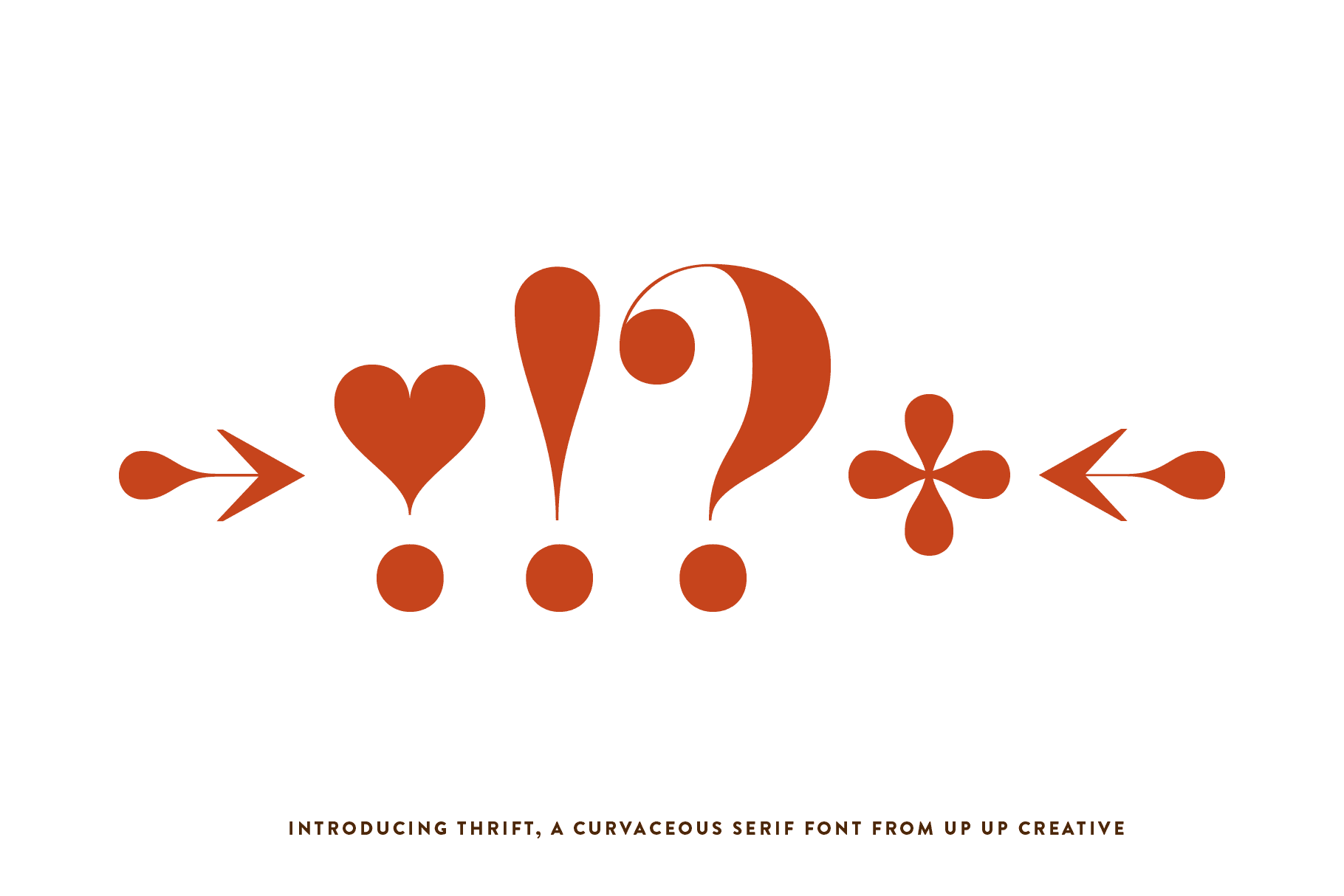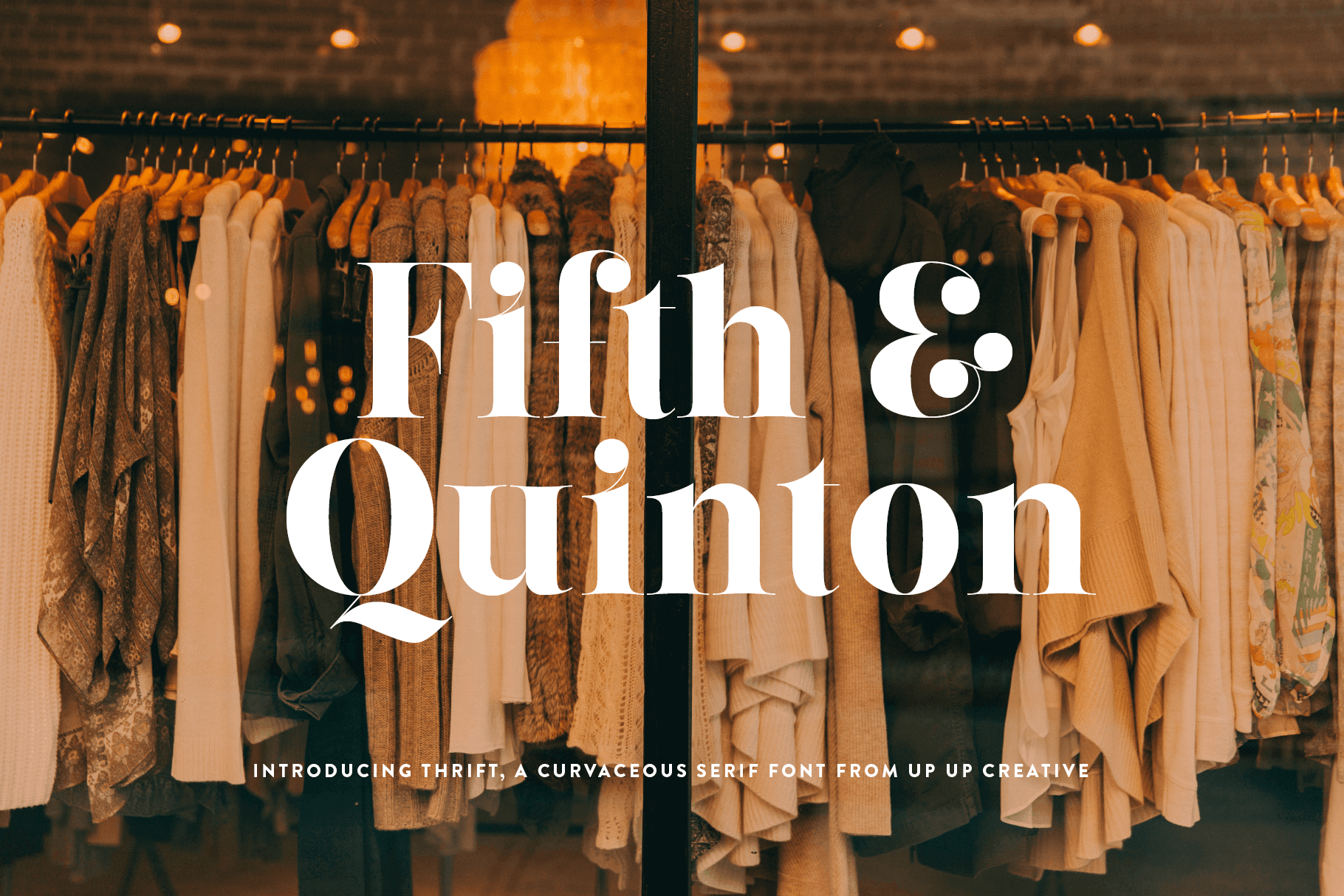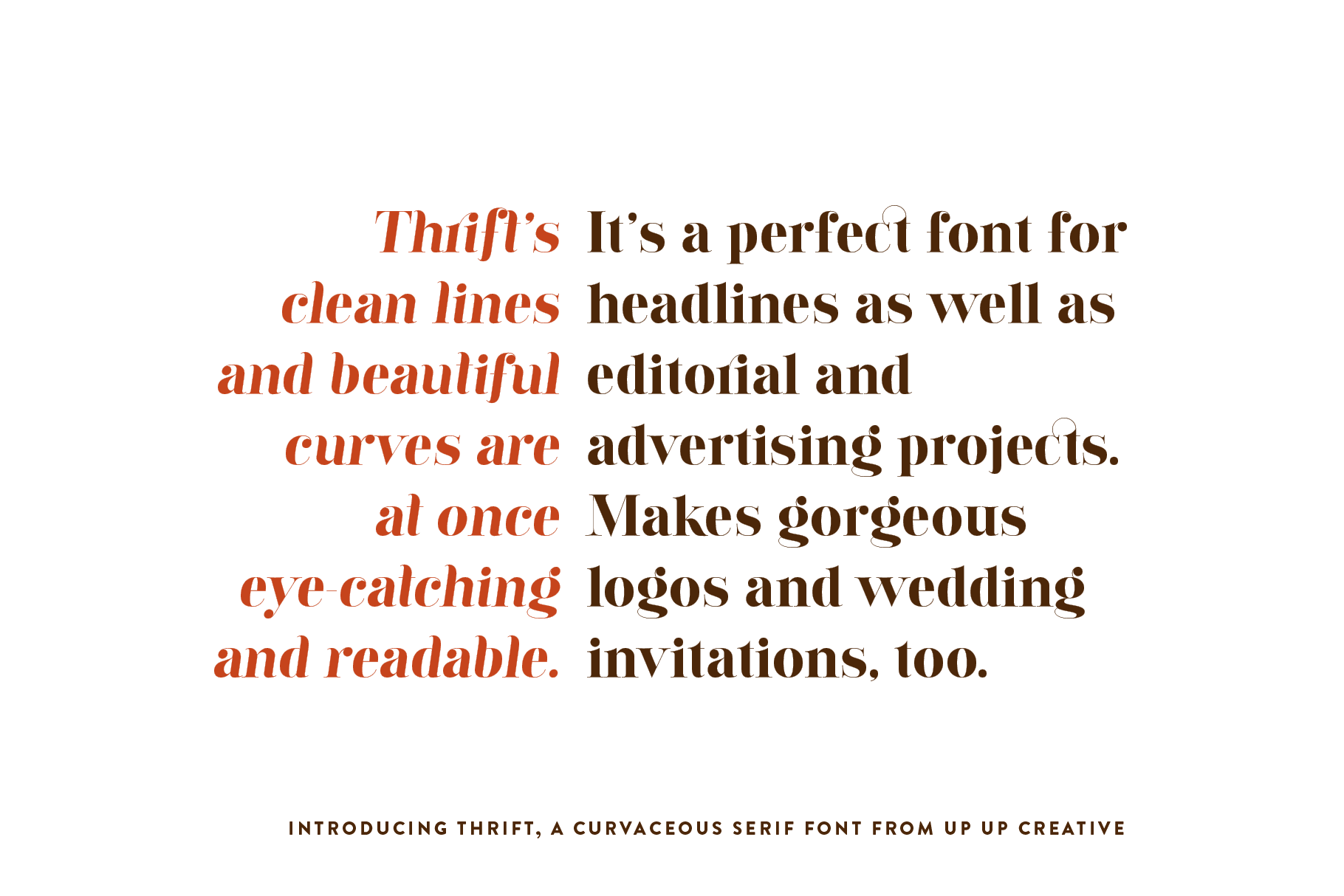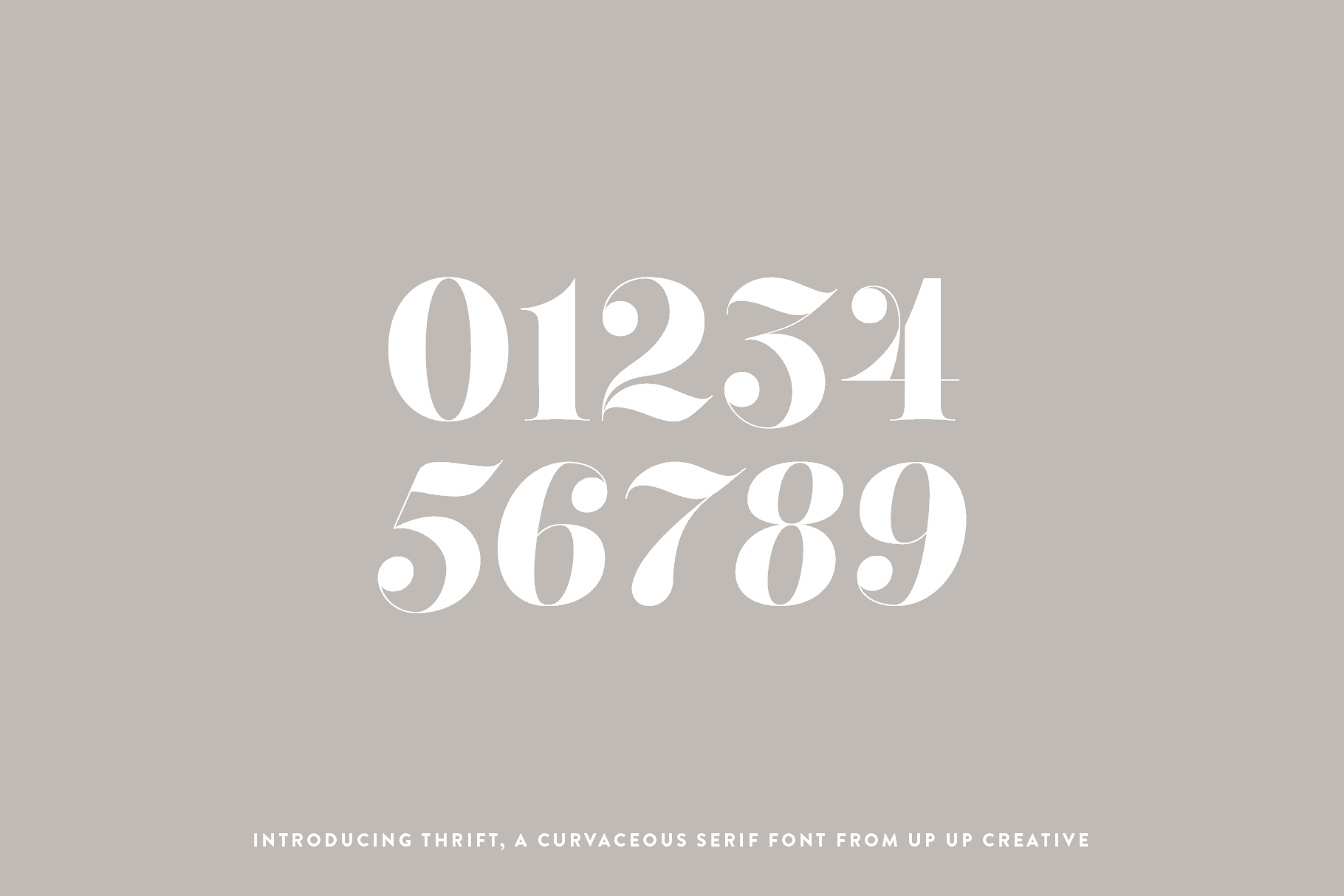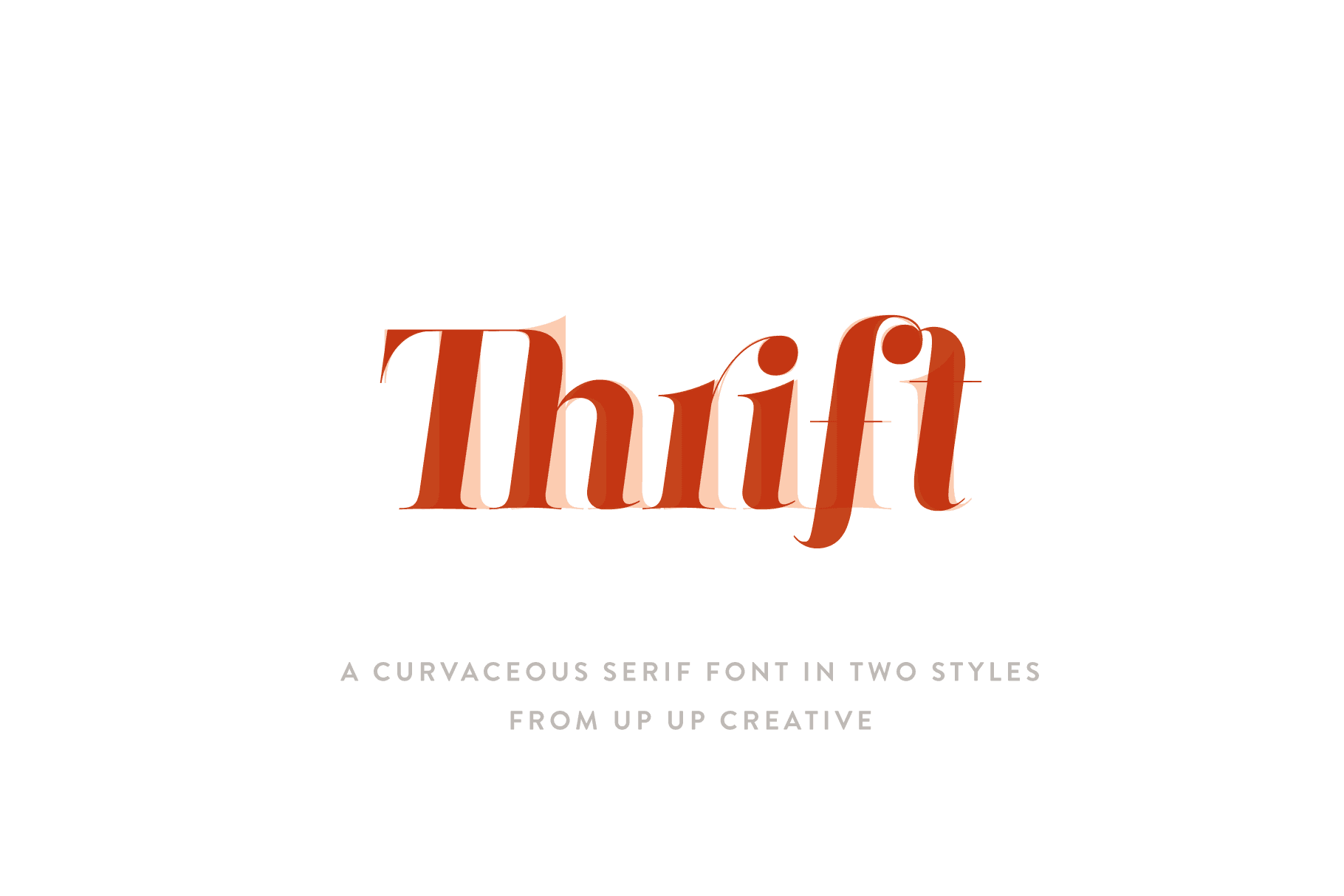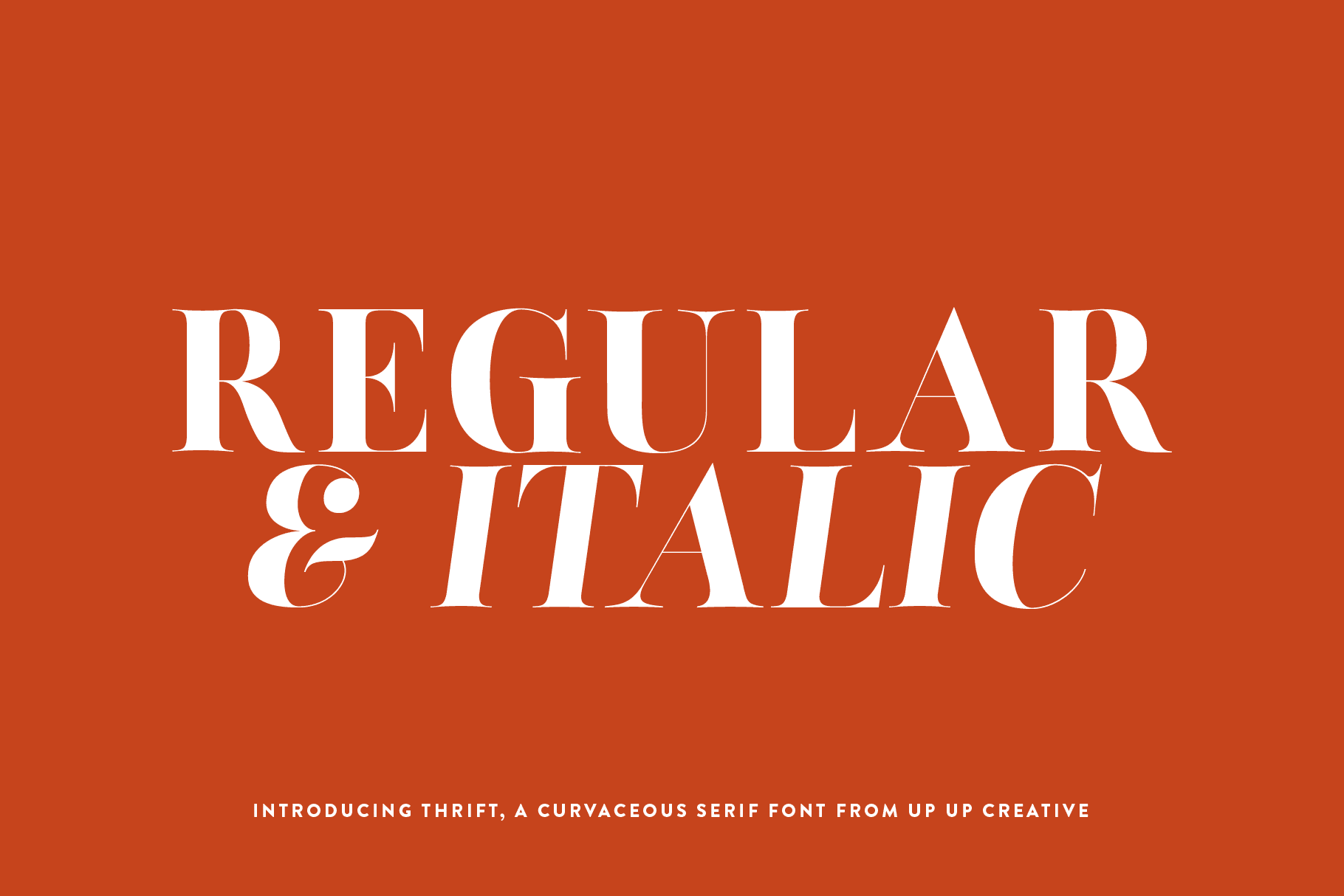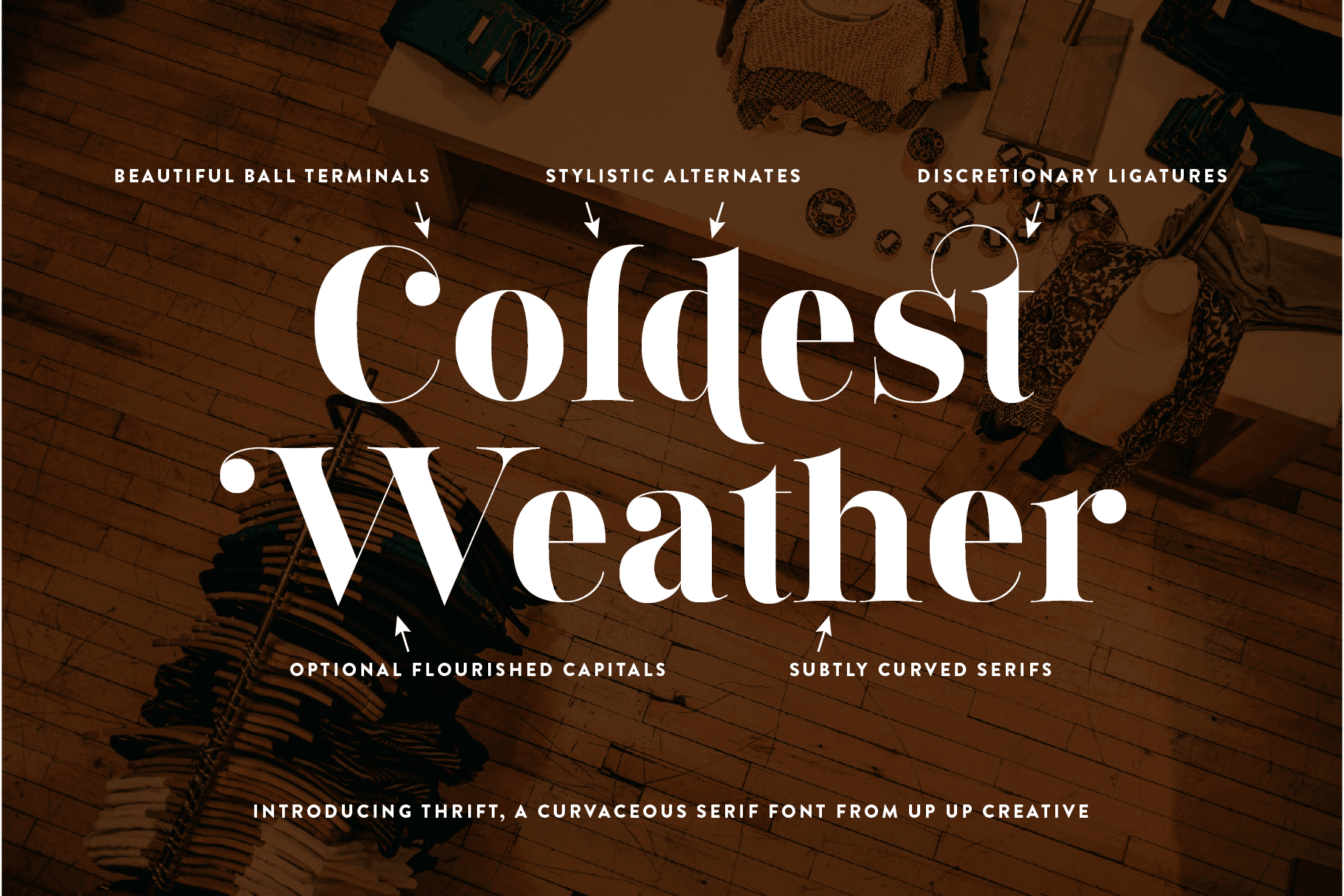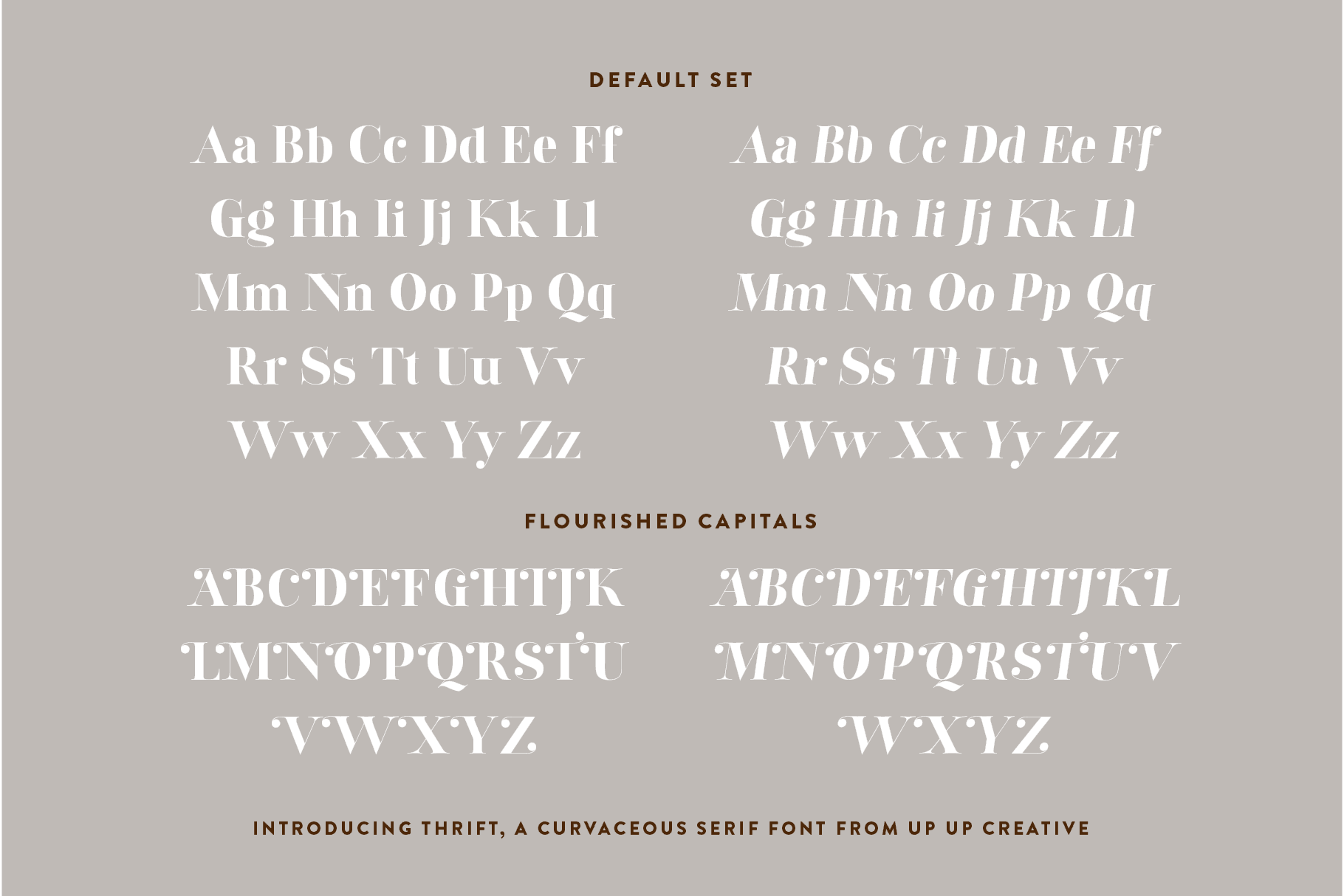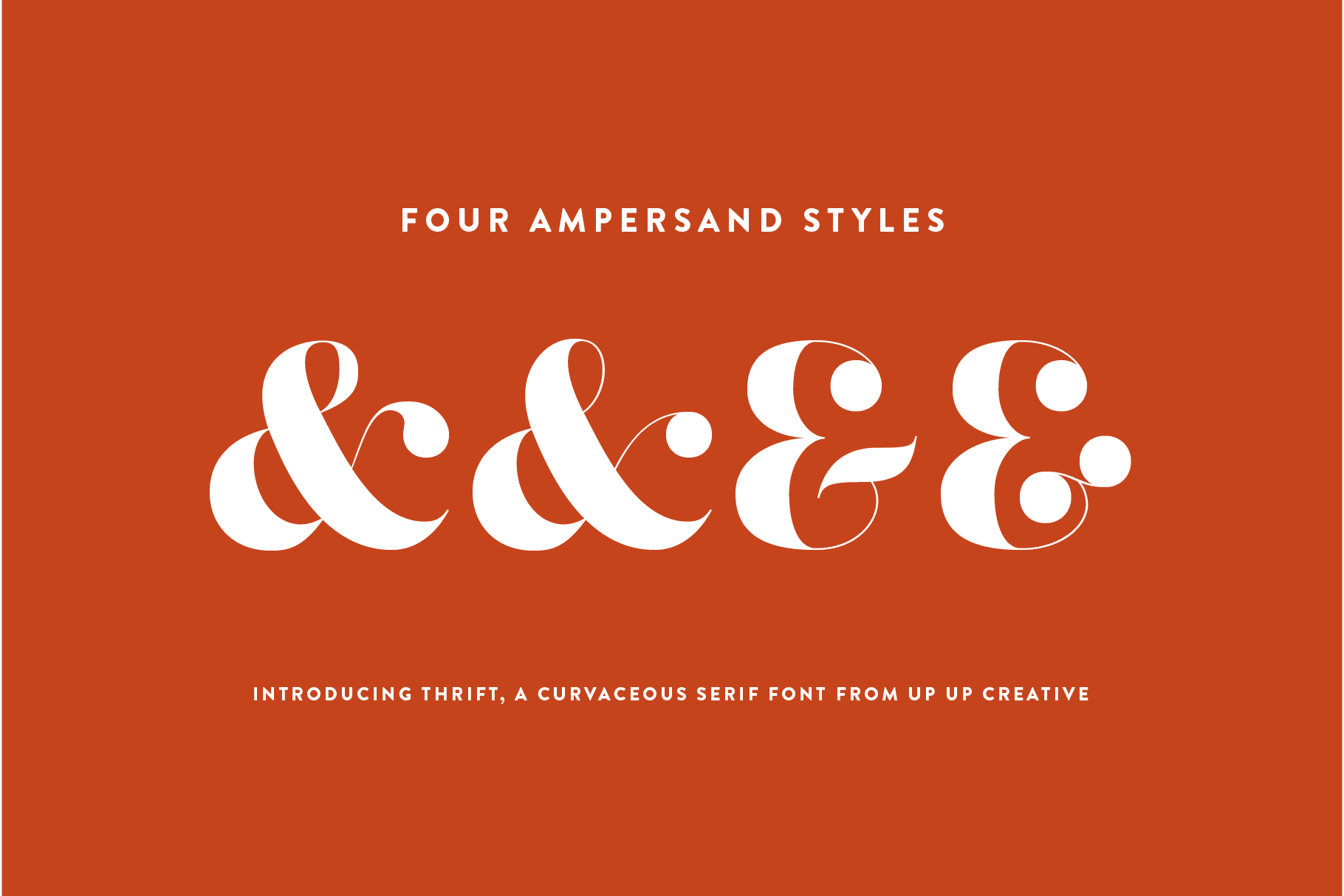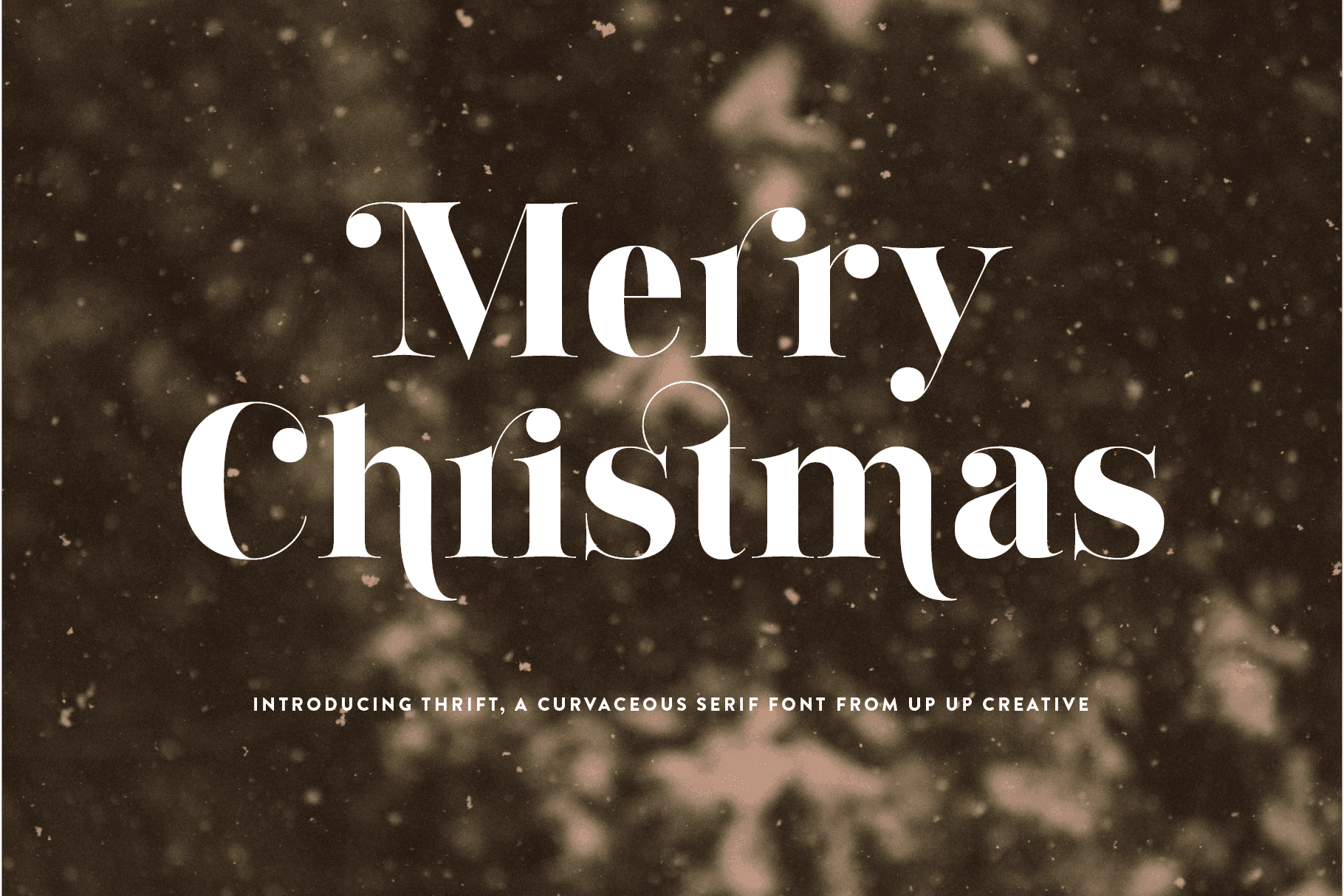
Thrift Serif Font Family
Thrift is a beautifully curvaceous serif font with smooth curves and fine lines and plenty of OpenType features. Thrift is perfect for your next editorial, advertising, branding, book, or invitation project.
OpenType Features
- character variants
- standard and discretionary ligatures
- fractions
- initial and final forms
- lining figures and oldstyle figures
- localized forms (multi-language and multi-currency support)
- ordinals and superscripts
- stylistic alternates
- stylistic sets
Includes 21 ligatures
- Released in 2019
- Includes 774 glyphs
- Italic and Roman (Upright), each in one weight